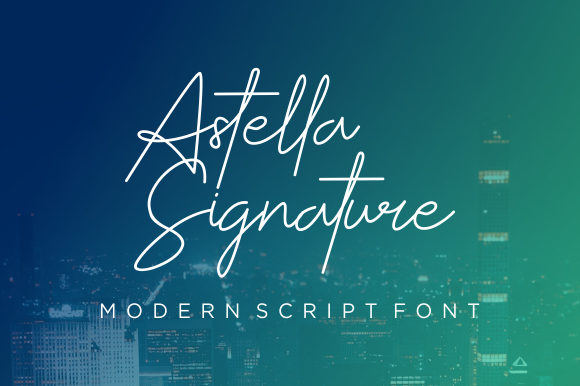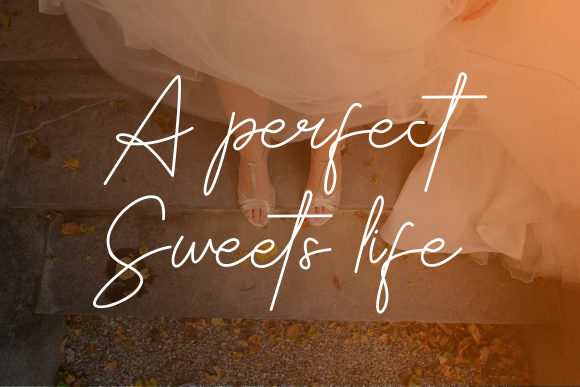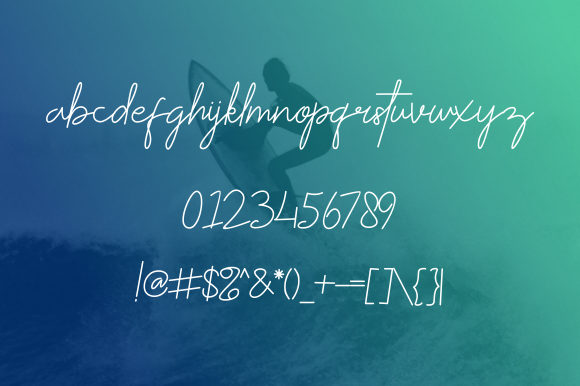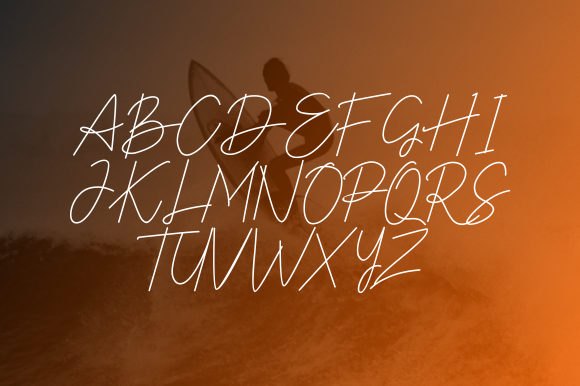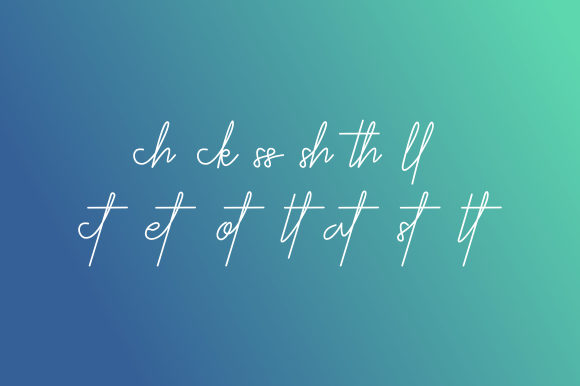
Astella Signature Font
About Astella Signature Font
Astella Signature is a lovely script font created with a minimalist touch. It is perfectly suited for a wide variety of projects!